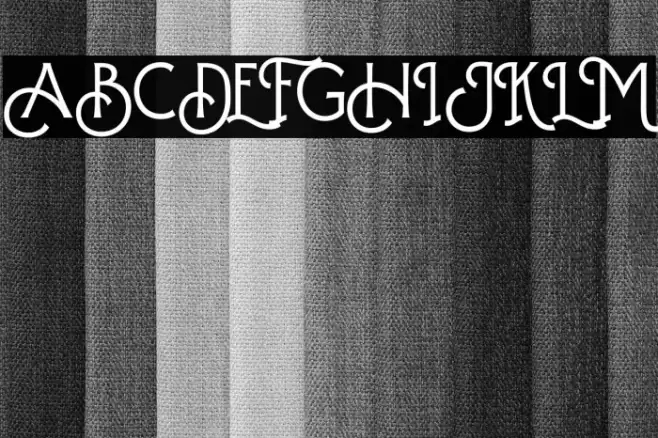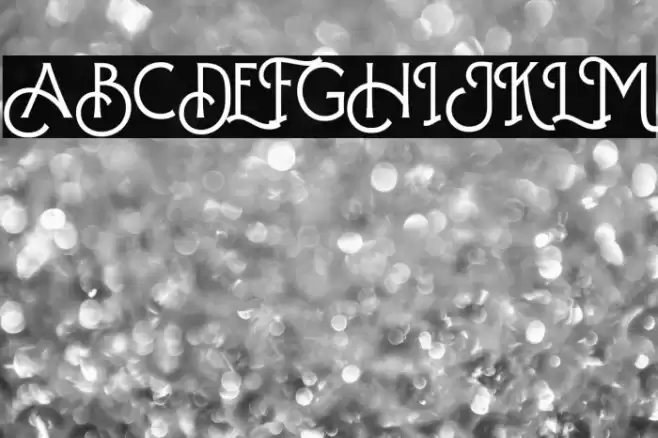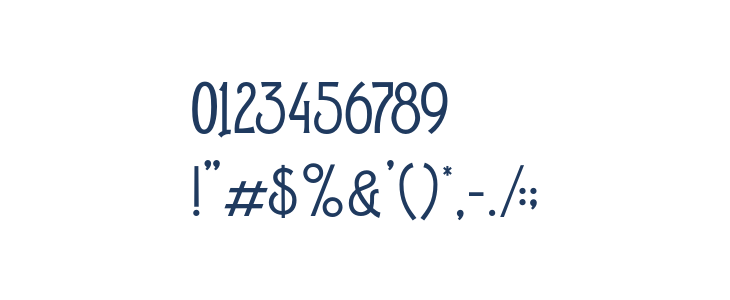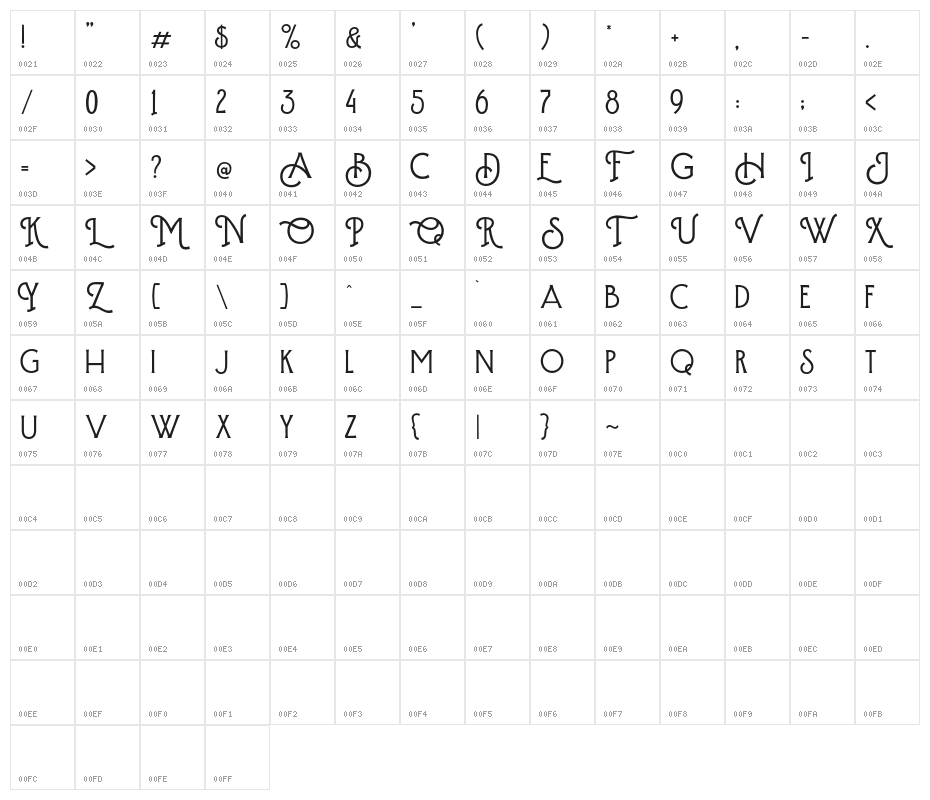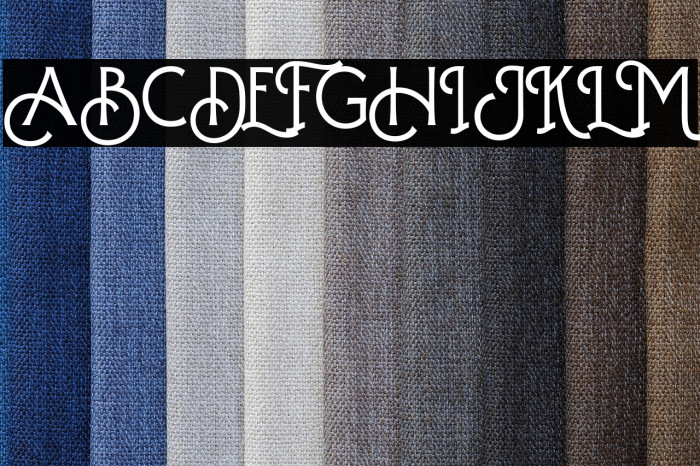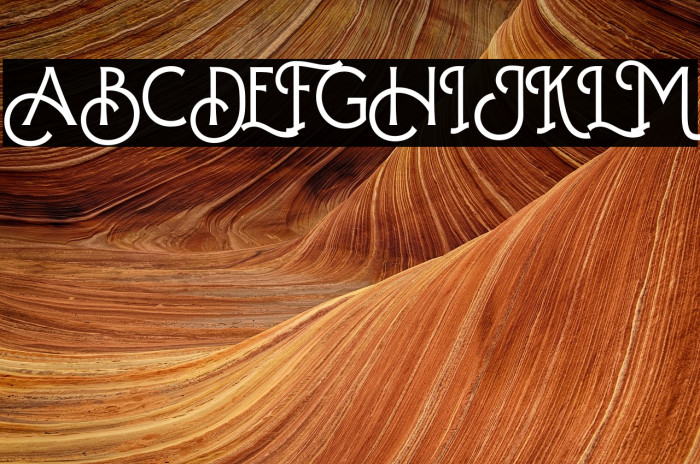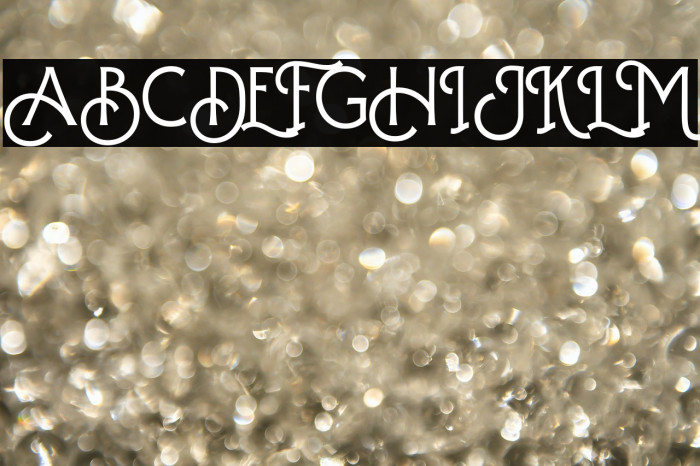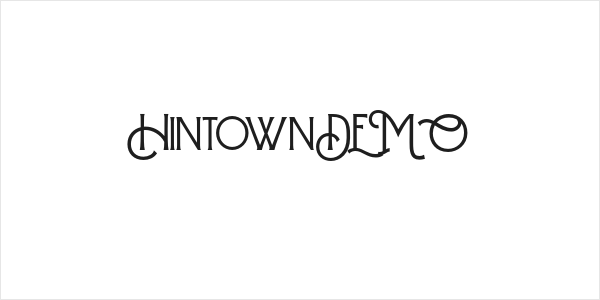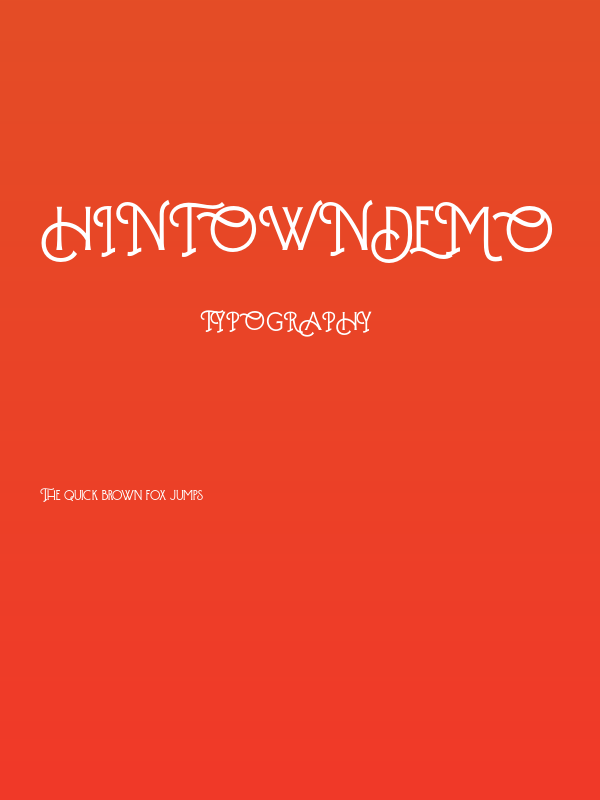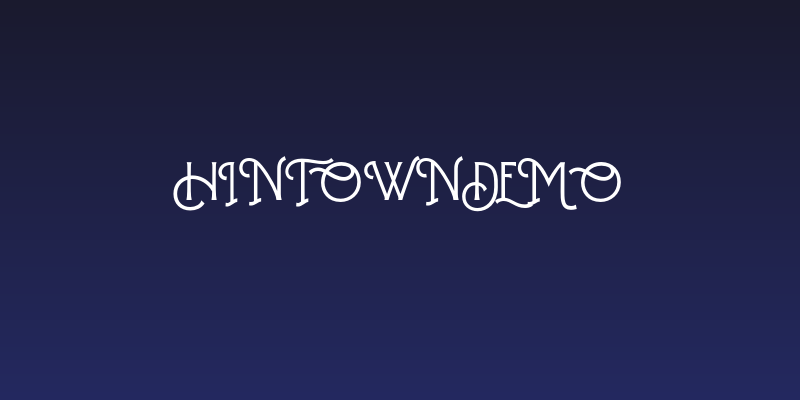
HintownDEMO Font
HintownDEMO Description
This font features a unique blend of decorative and classic elements, with an artistic flair that makes it stand out. The uppercase letters are characterized by intricate loops and swirls, particularly in letters like B, G, and N, giving them a whimsical and elegant appearance. The lowercase letters maintain a more straightforward design, providing a nice contrast to the ornate uppercase. The numerals are clean and easy to read, with a slight curvature that adds to the overall aesthetic. Special characters are designed with similar attention to detail, ensuring consistency throughout the font. This font is ideal for projects that require a touch of sophistication and creativity.
A decorative font with ornate uppercase letters and clean lowercase characters from Uncategorized fonts.
- Proposed Projects: Ideal for wedding invitations, branding, and artistic posters.
- Use Case: Logos, Headlines, Invitations